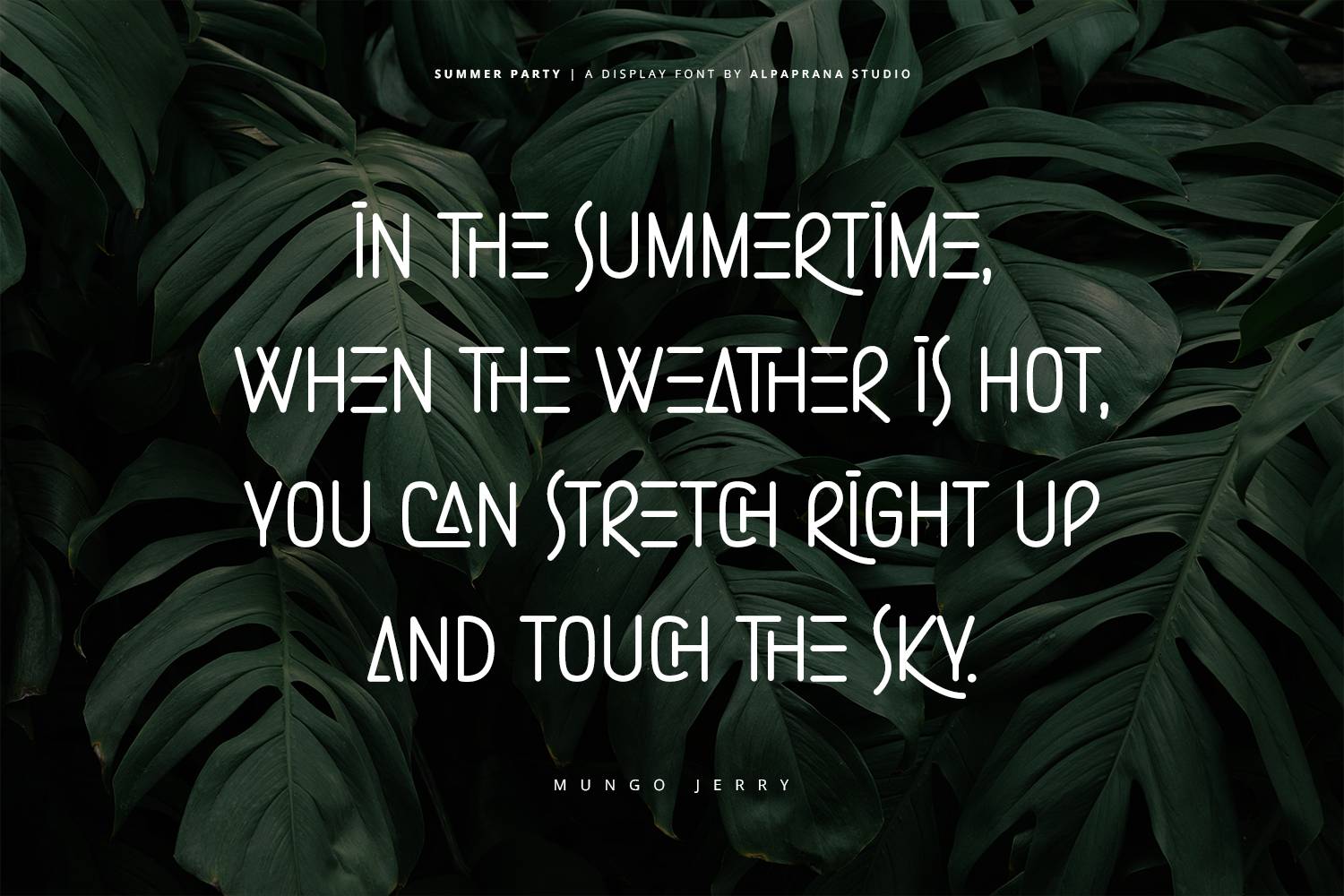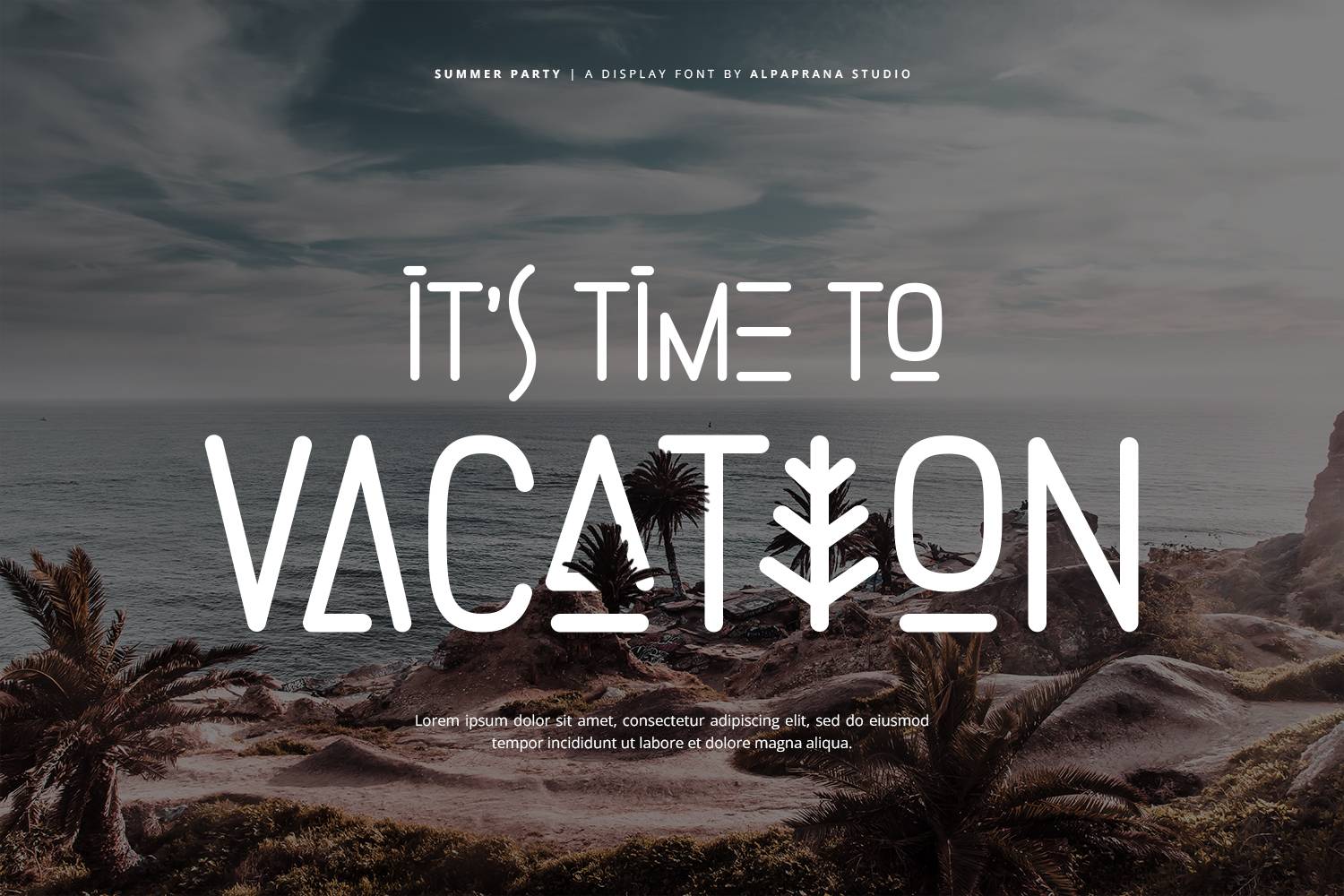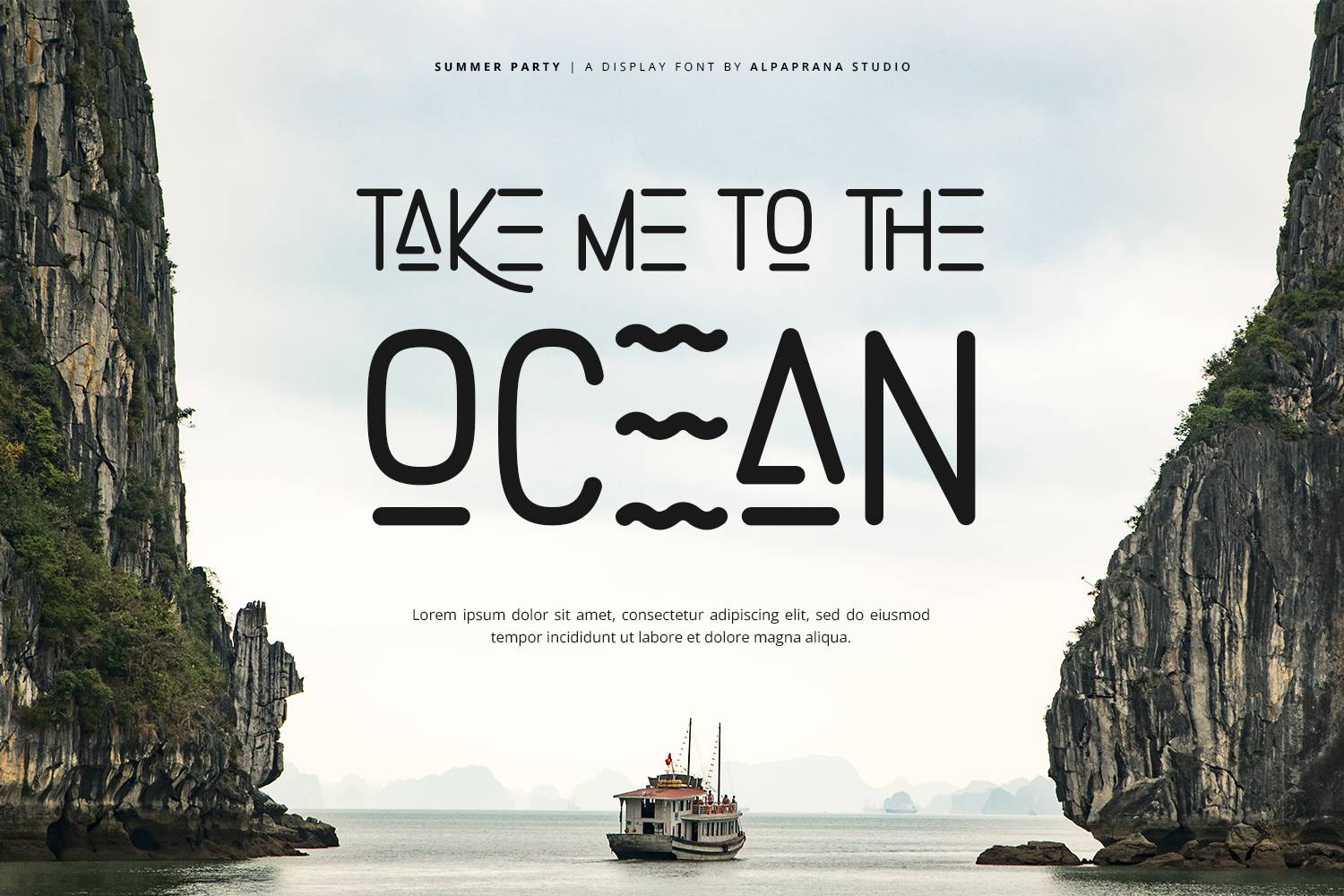
Summer Party is a playful and modern sans serif font with a light weight and narrow width, featuring clean, smooth strokes and distinctive geometric letterforms like the triangular "A" and looped "R." Its unique character shapes and slightly quirky details give it a lively, casual vibe, making it an excellent choice for fun branding, event invitations, and creative headlines where a fresh, energetic style is needed.
Summer Party Font
About Summer Party Font